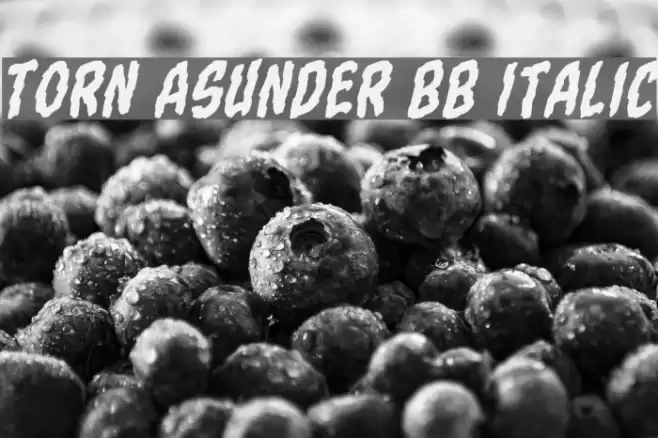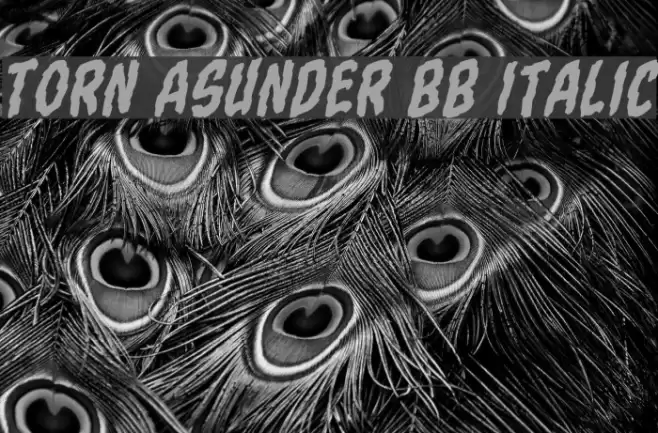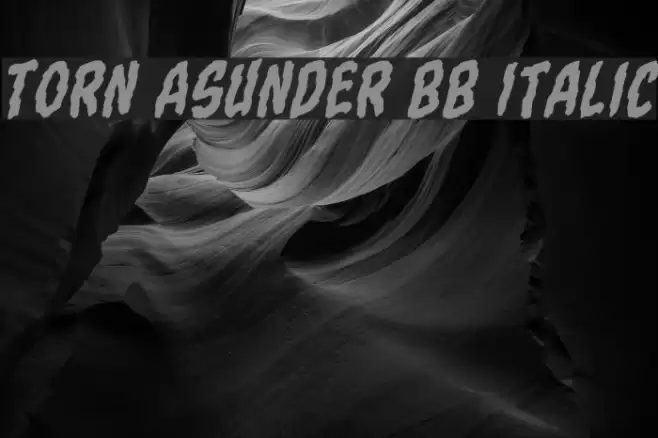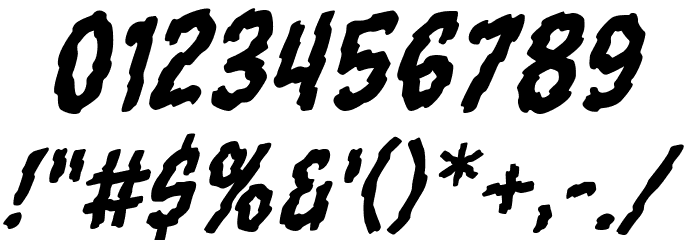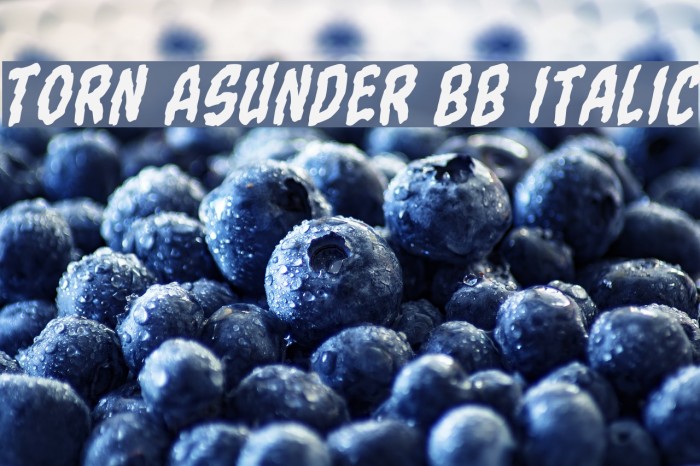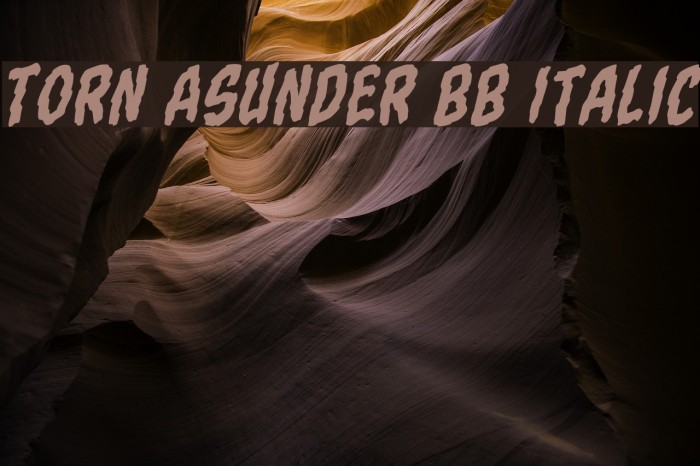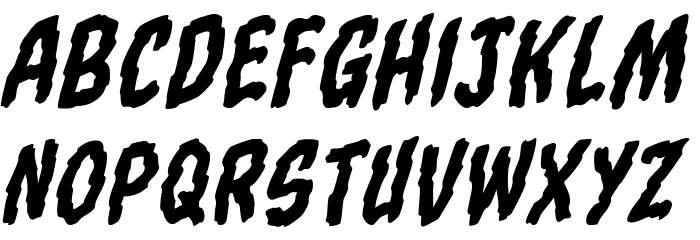
Torn Asunder BB Italic Font
Torn Asunder BB Italic Description
This font features a bold, italicized style with a rugged, torn appearance, giving it a dynamic and edgy look. The characters are thick and heavily stylized, with jagged edges that create a sense of movement and intensity. The uppercase and lowercase letters maintain a consistent slant, enhancing the italic effect. Numbers and special characters follow the same design, ensuring uniformity across all glyphs. The overall aesthetic is bold and impactful, making it suitable for attention-grabbing designs.
A bold, italicized font with a rugged, torn appearance from Uncategorized fonts.